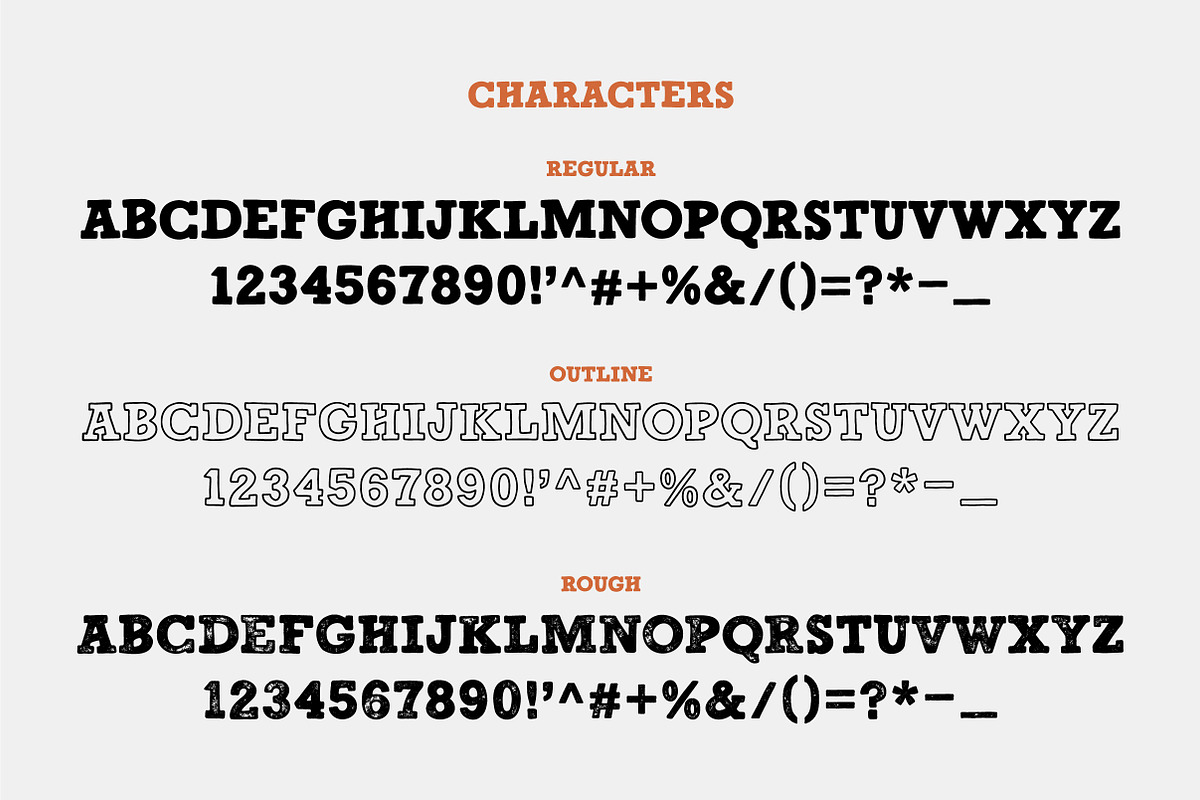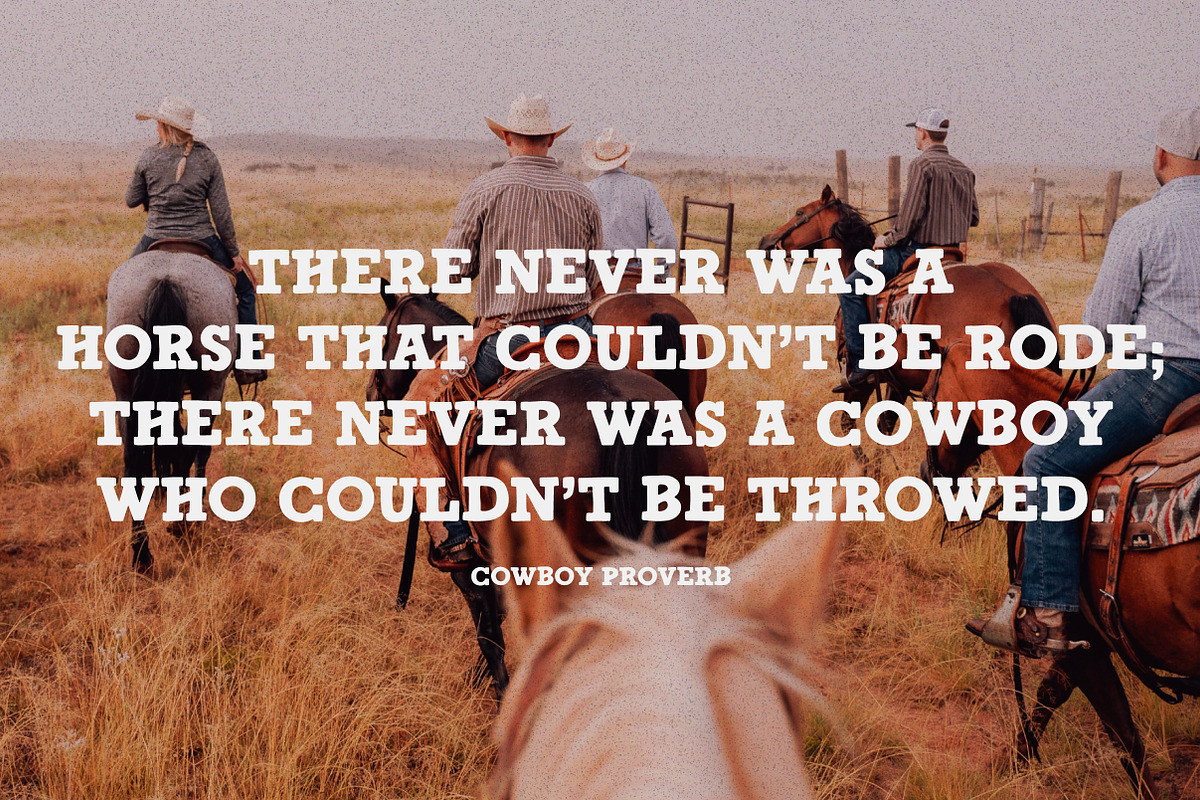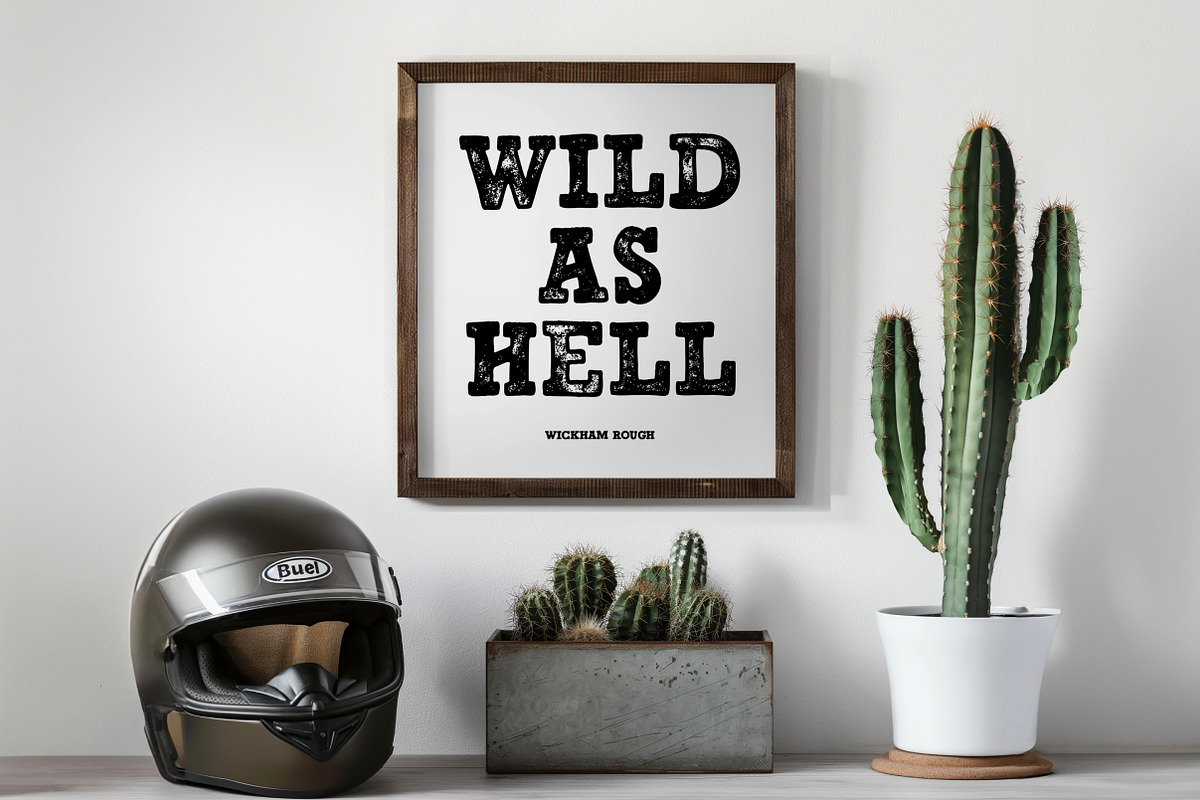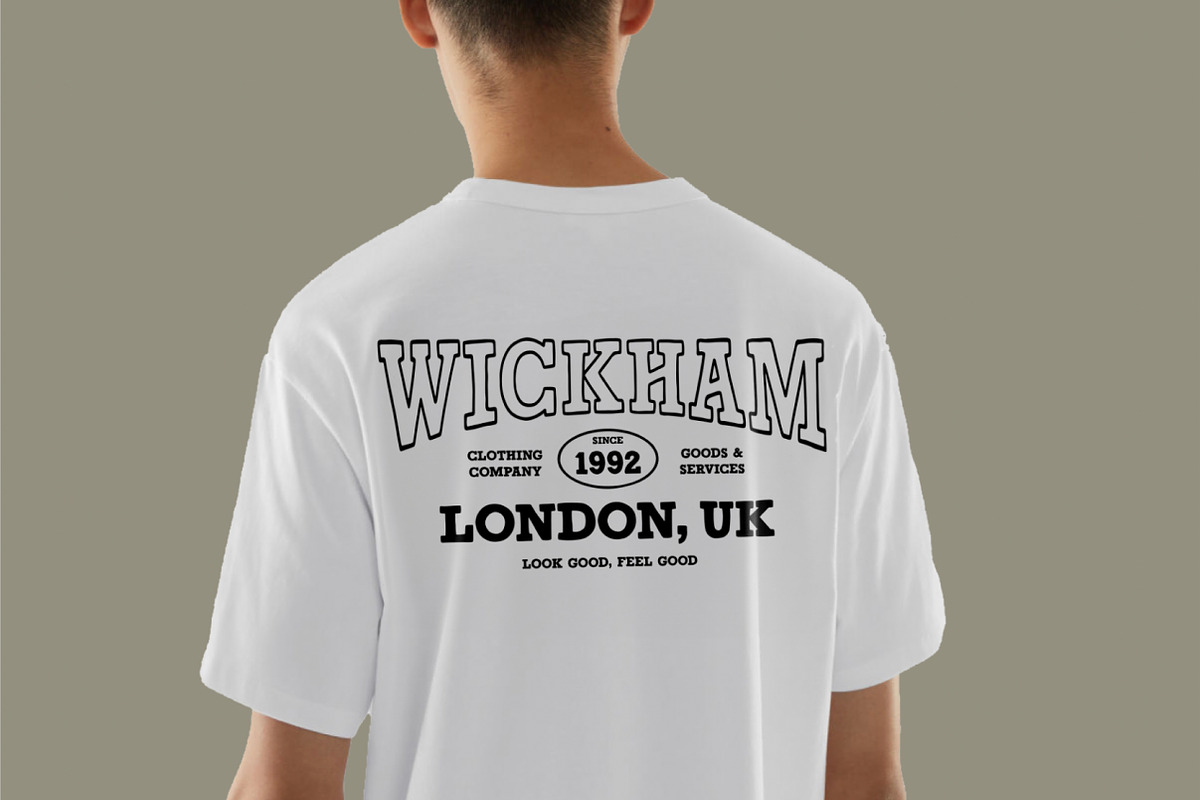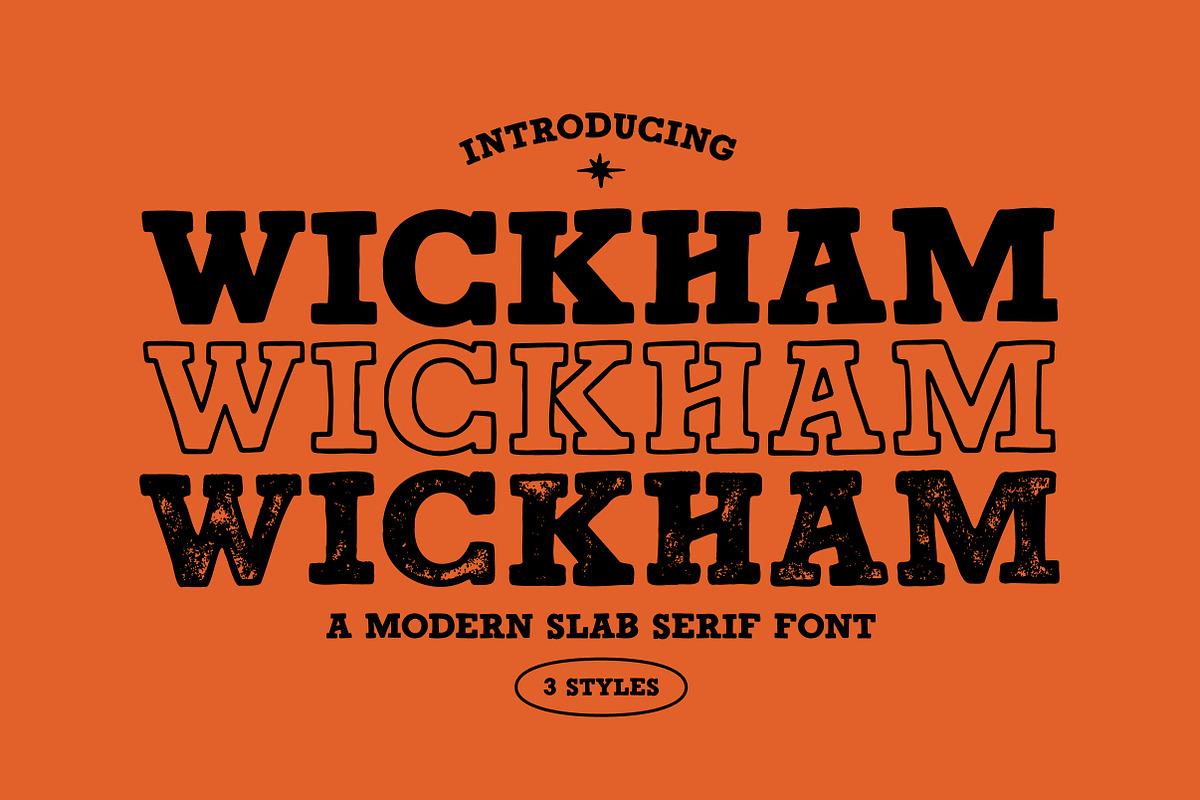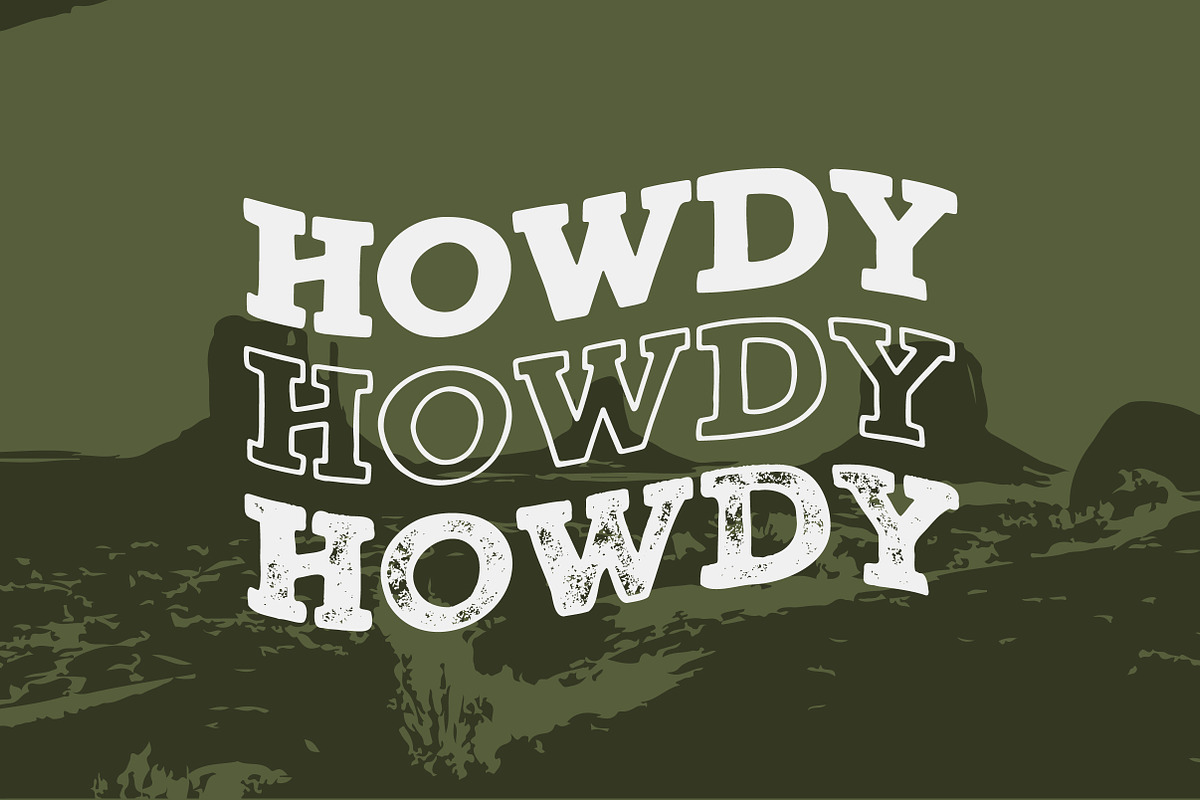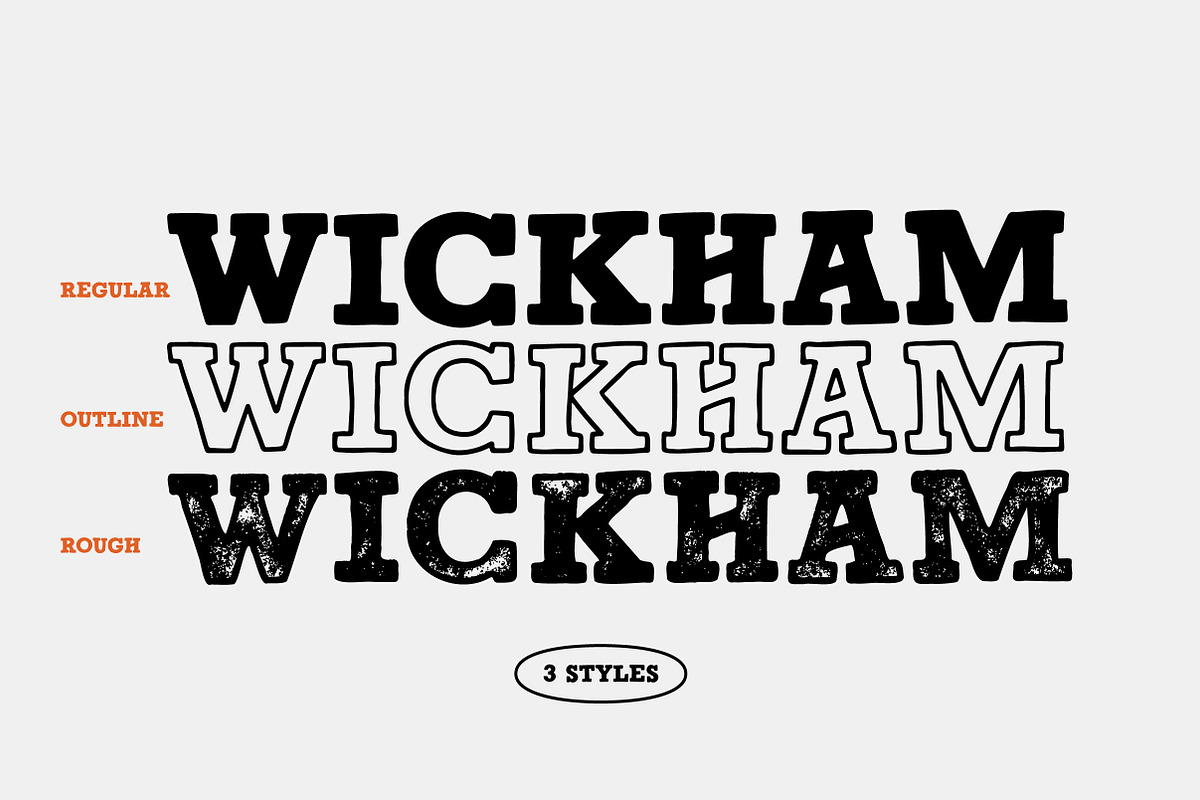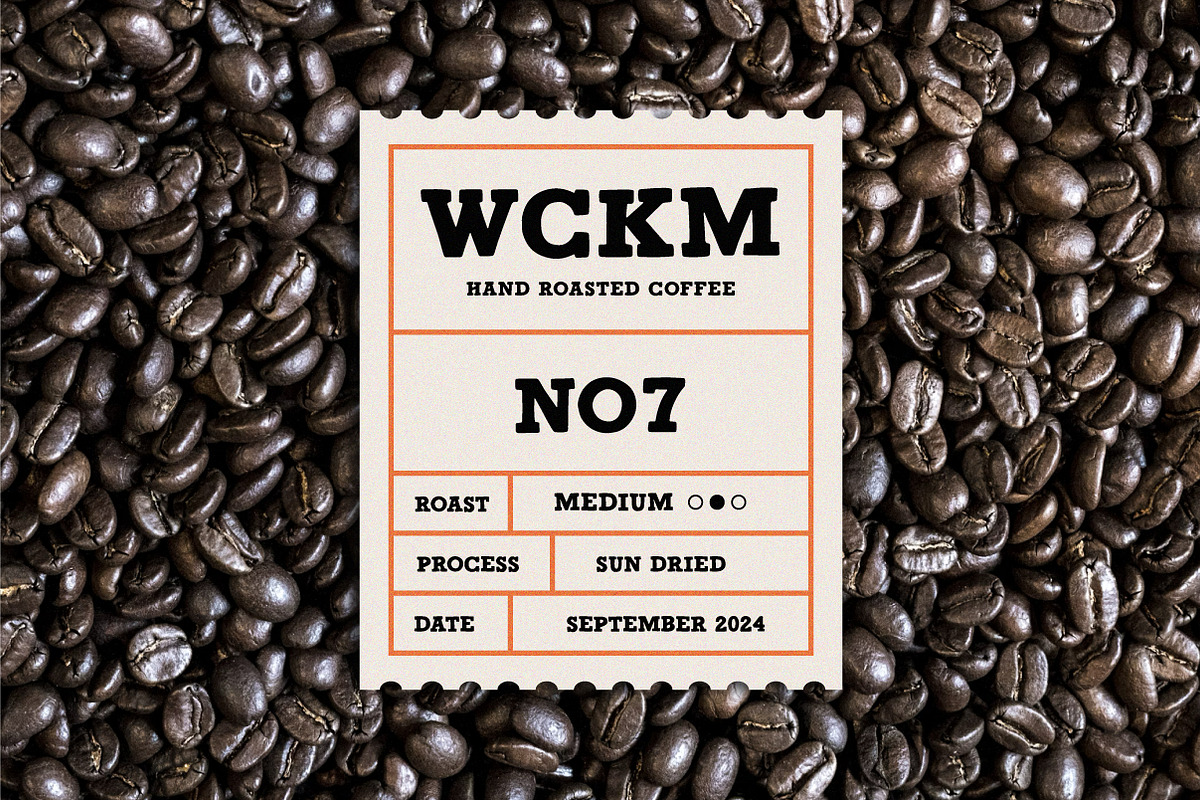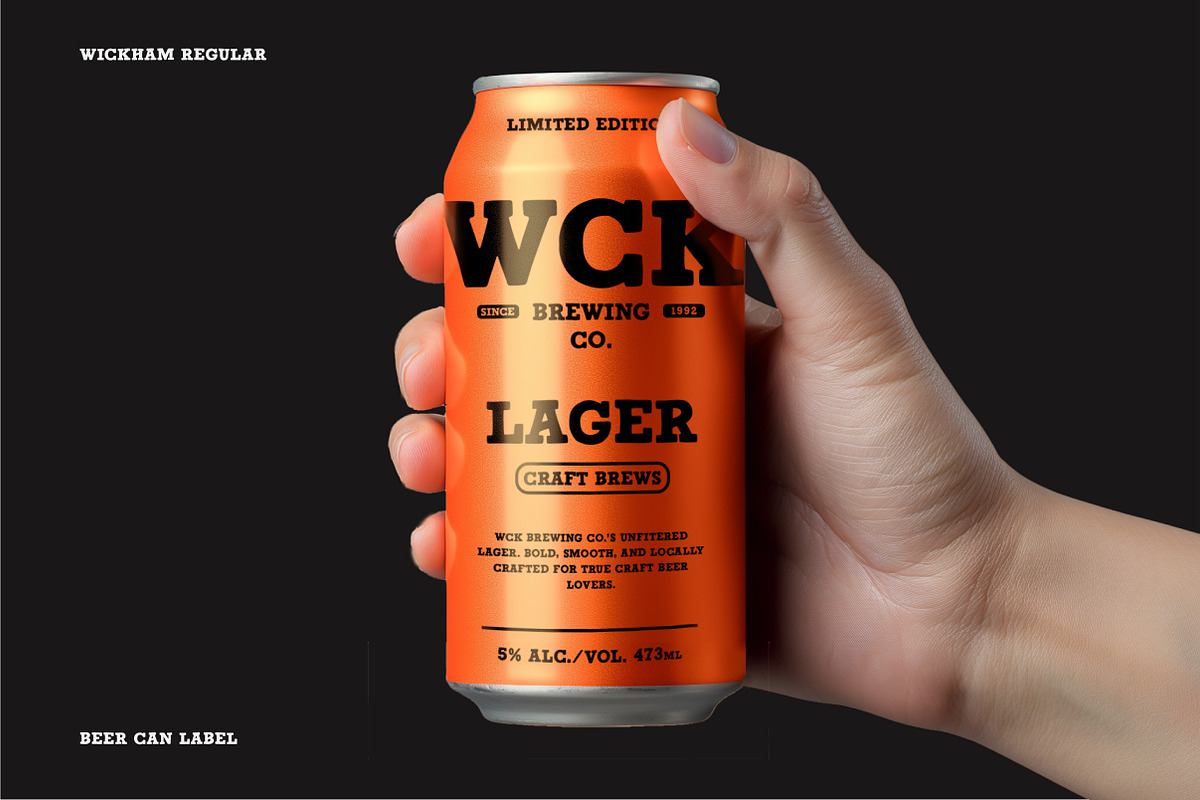
WICKHAM - Handmade Slab Serif Font
Wickham This modern slab serif font family features three styles: Regular, Outline, and Rough. Perfect for vintage, western, or rustic designs, these bold and textured fonts add character to logos, posters, and apparel.
3 Font Styles ( Regular, Outline, and Rough)
Uppercase Letters Only